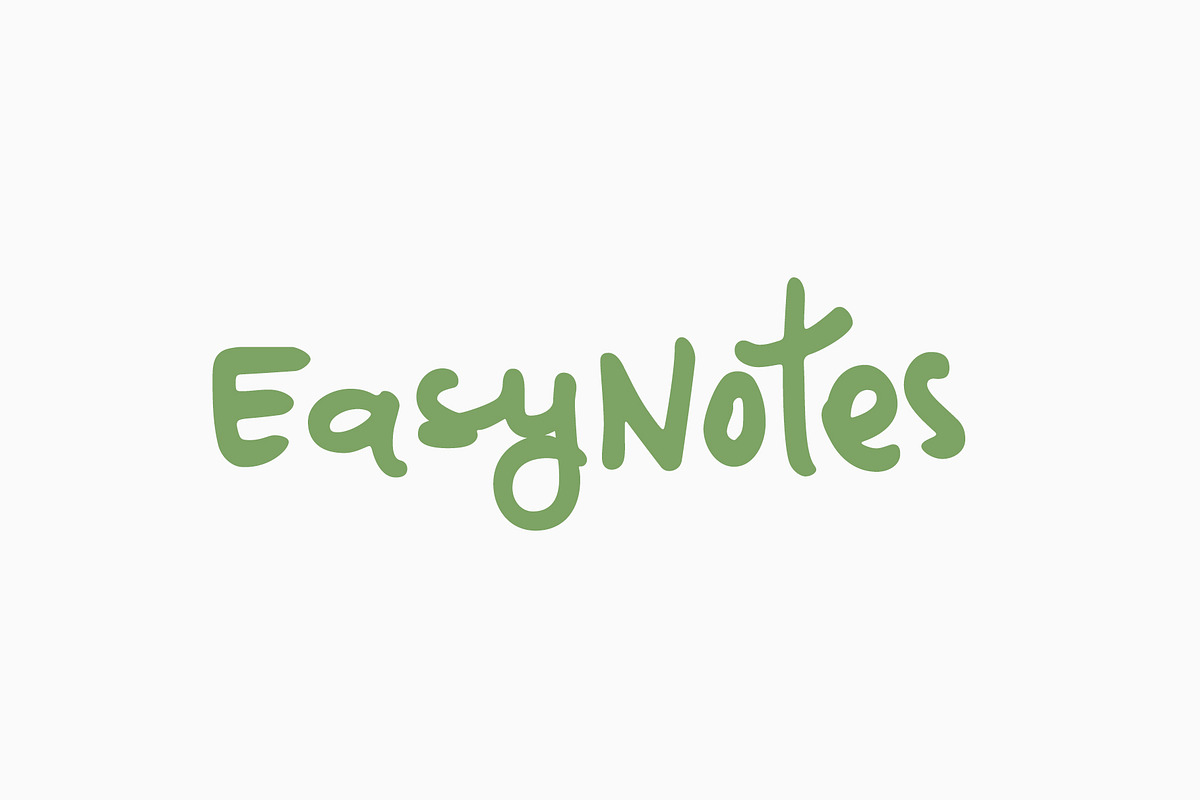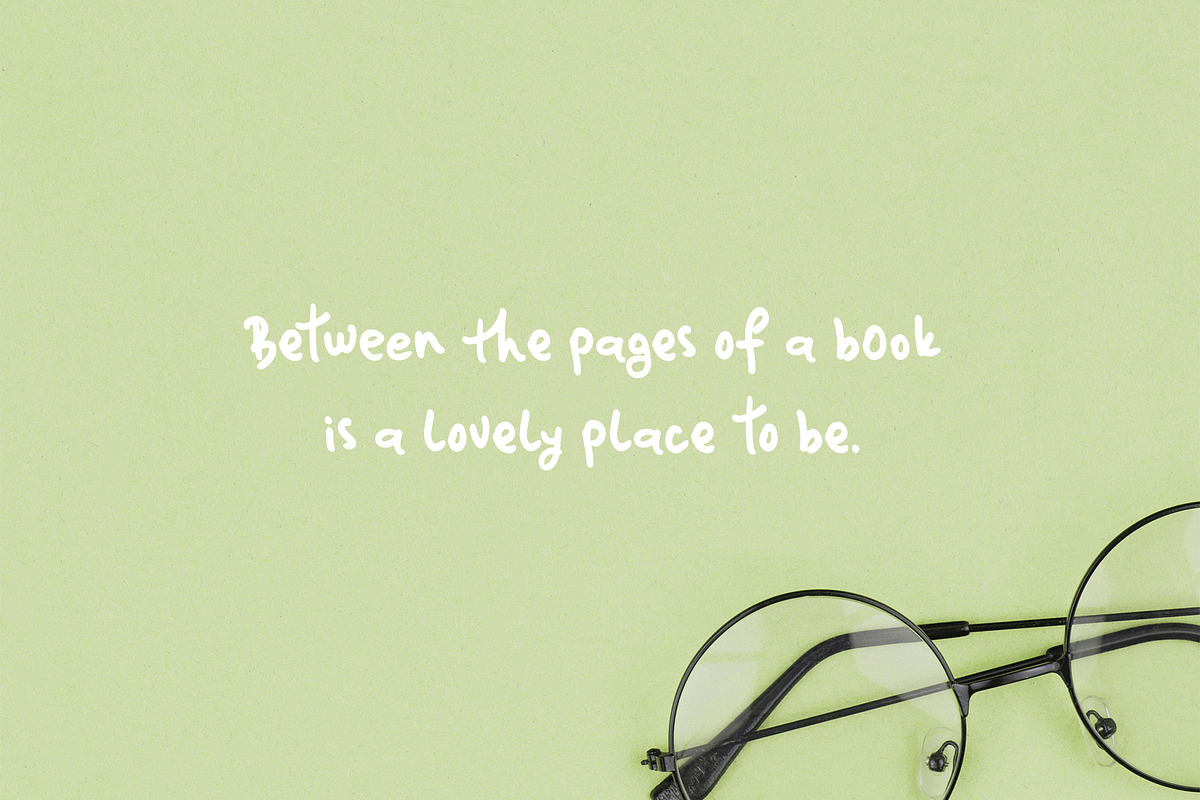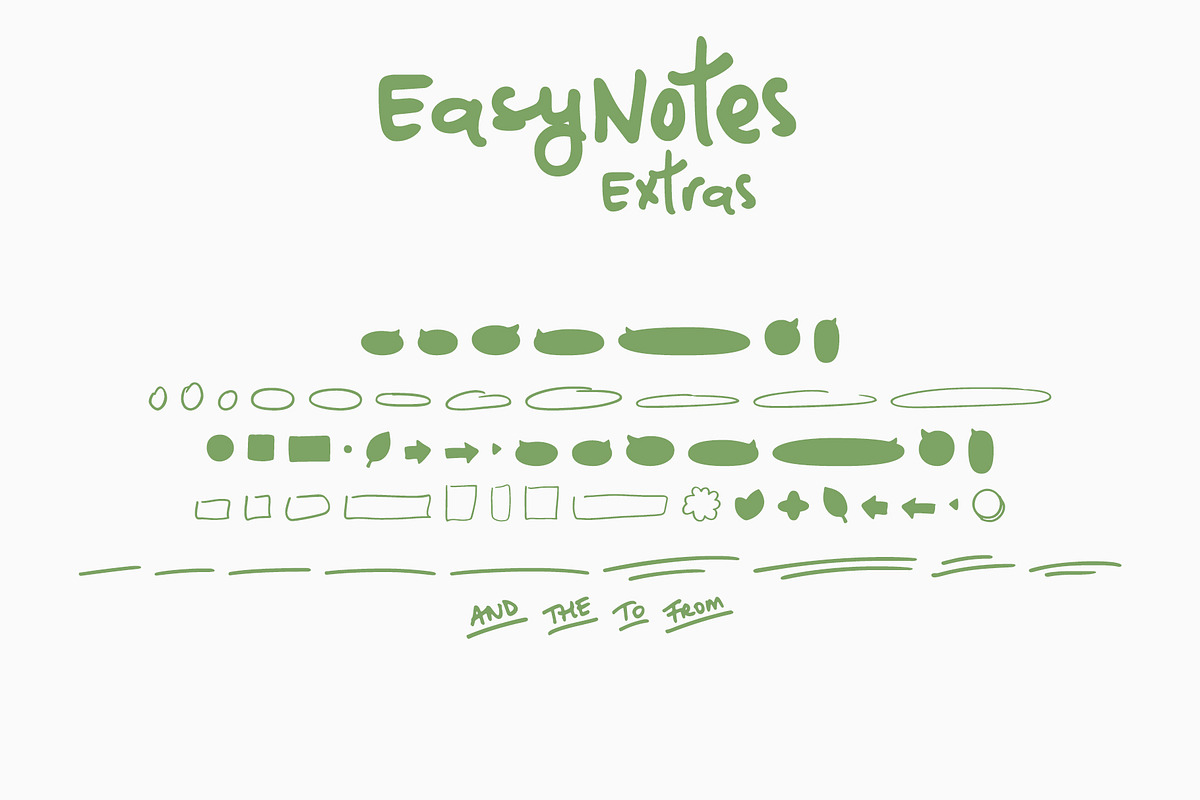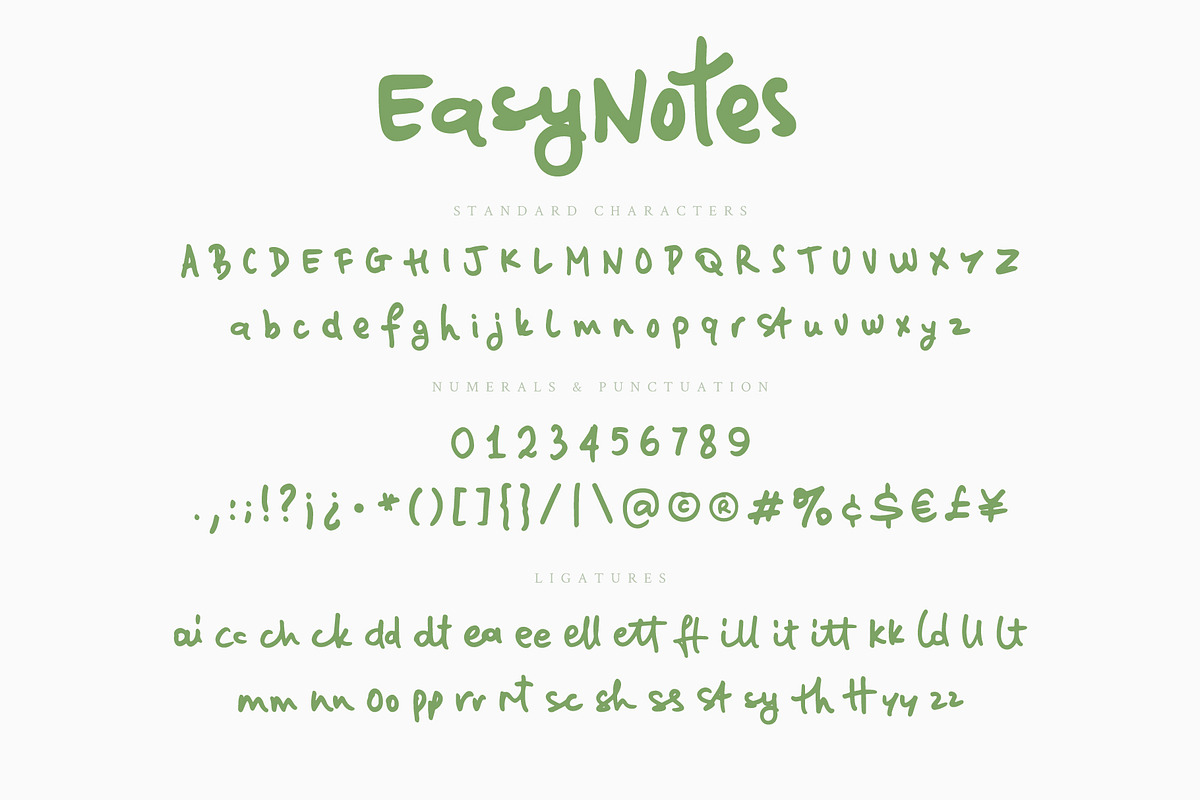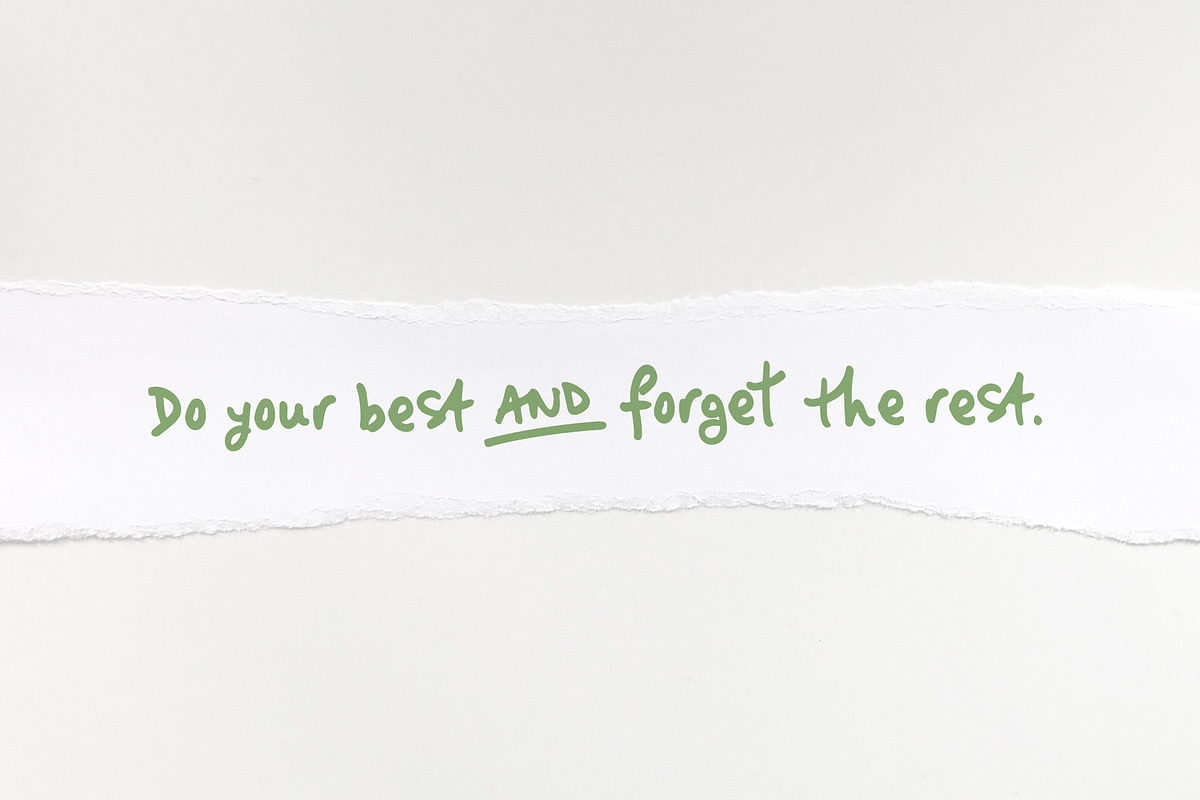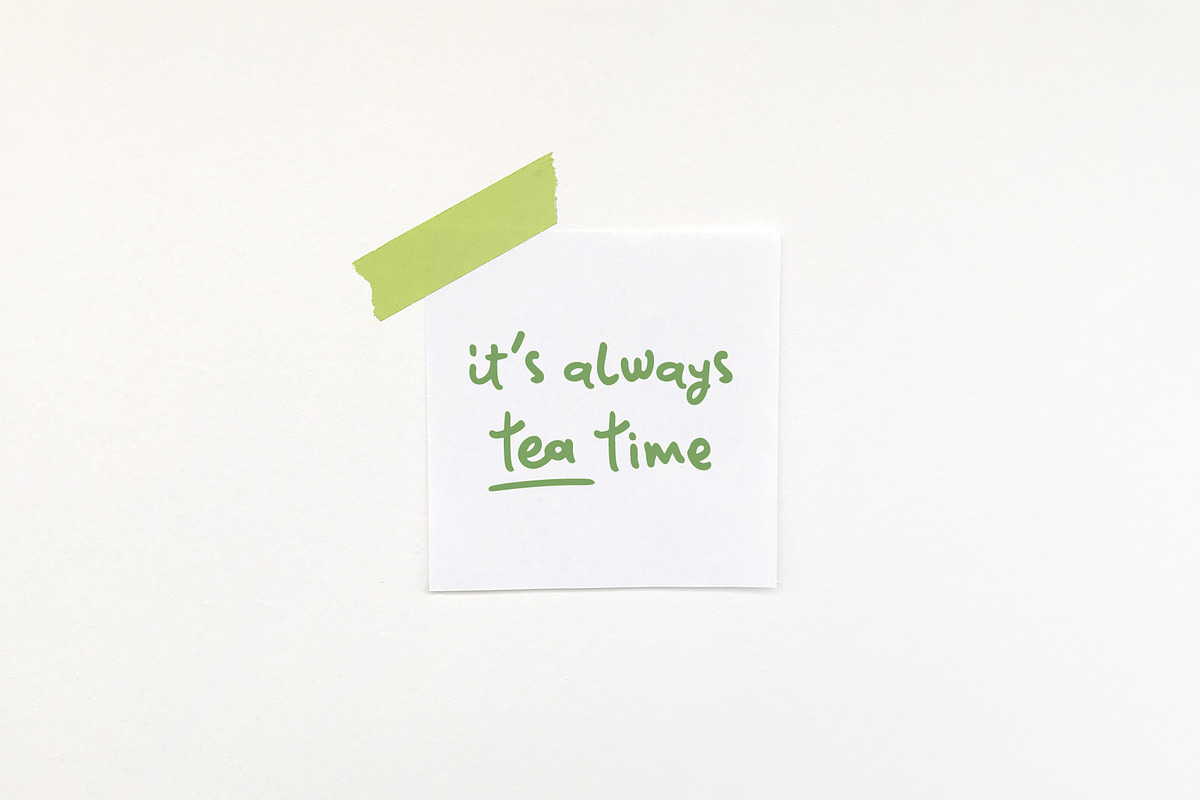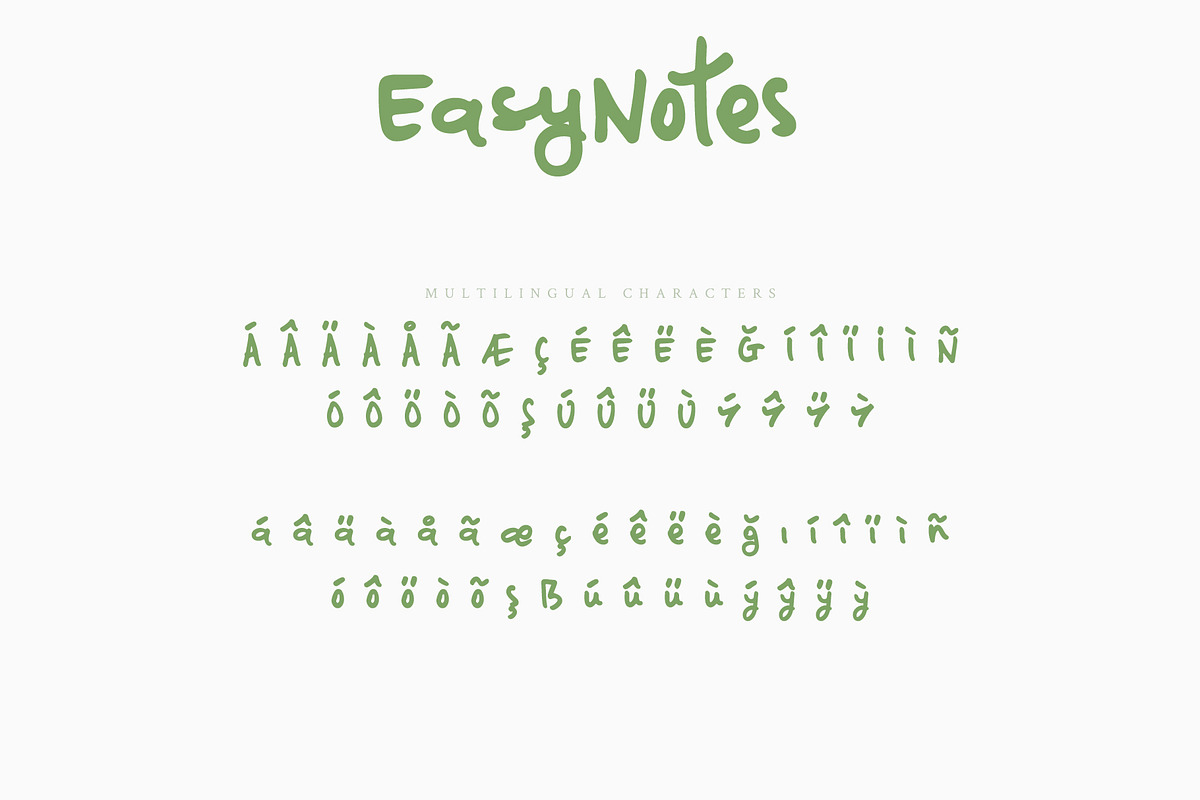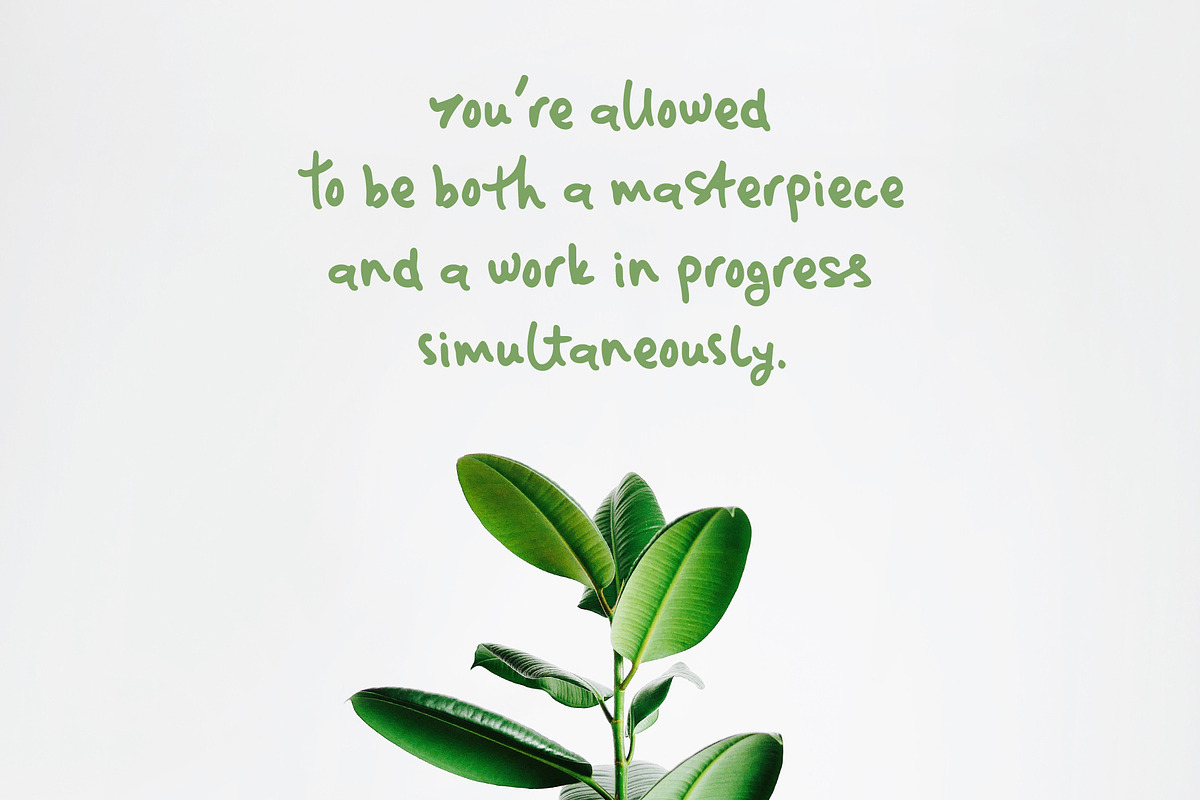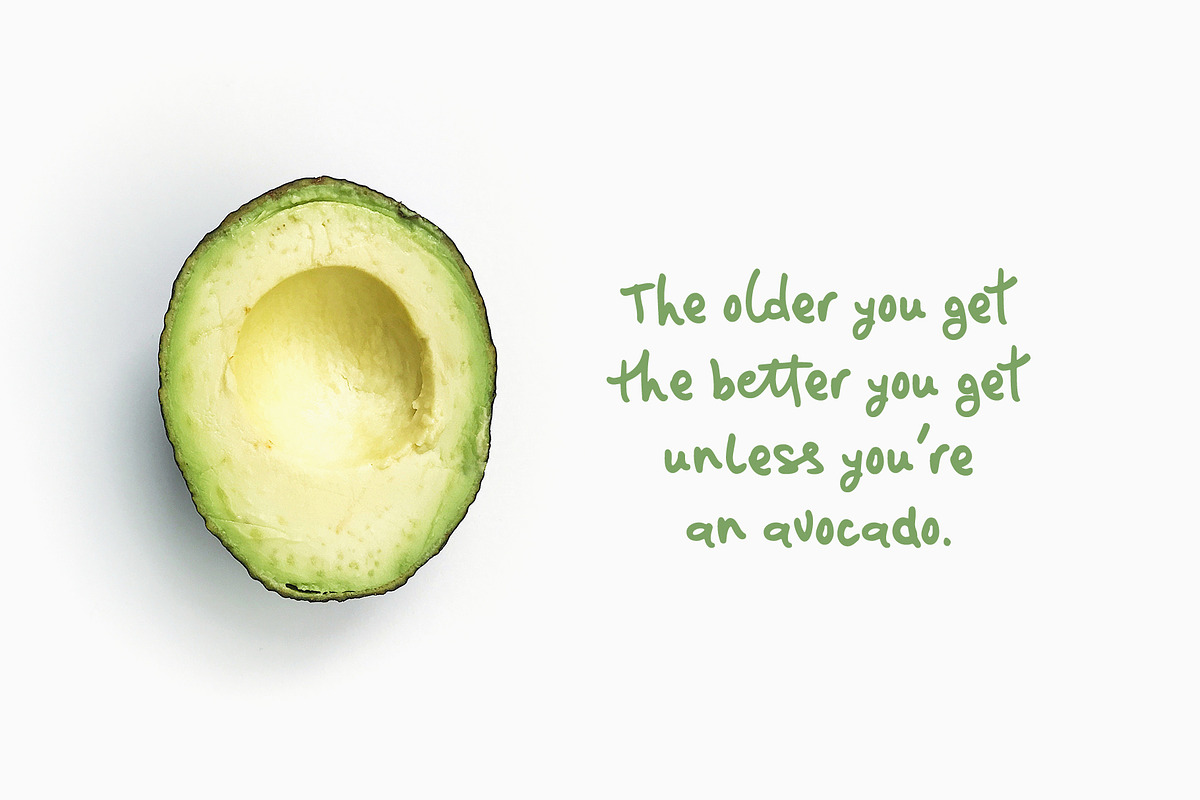
EasyNotes | Casual Handwritten Font
EasyNotes is a casually handwritten marker font with ligatures to support the genuine handwriting look. Simple and cheerful, EasyNotes comes with a set of handy marker strokes, shapes and a few catchwords.
- Upper Case & Lower Case Letters
- 33 Ligatures
- Language Support